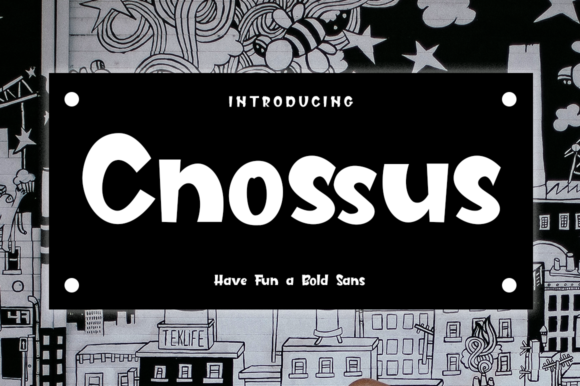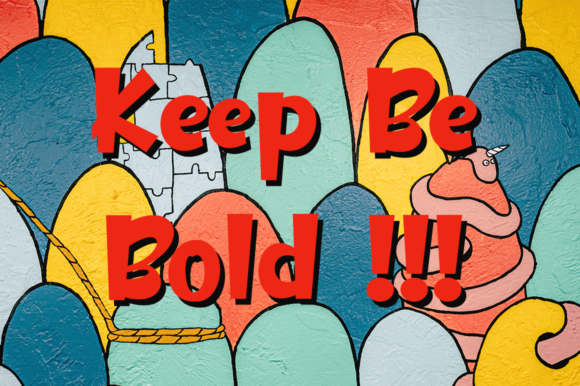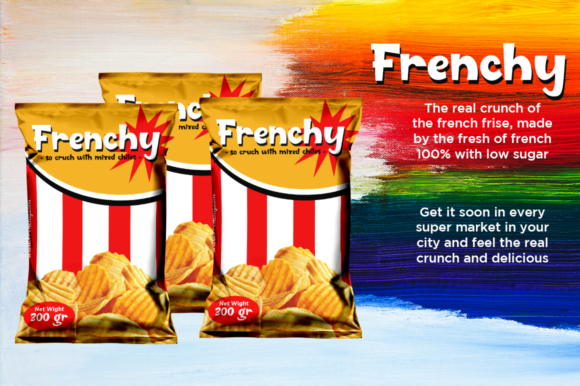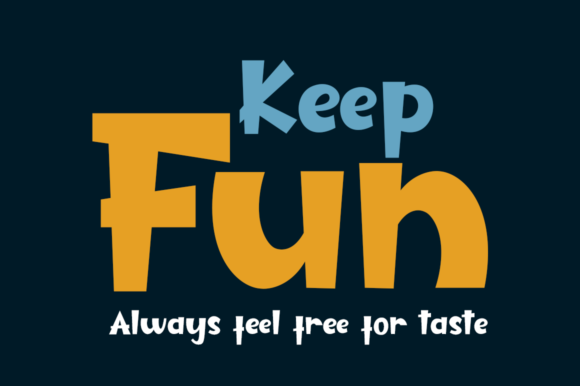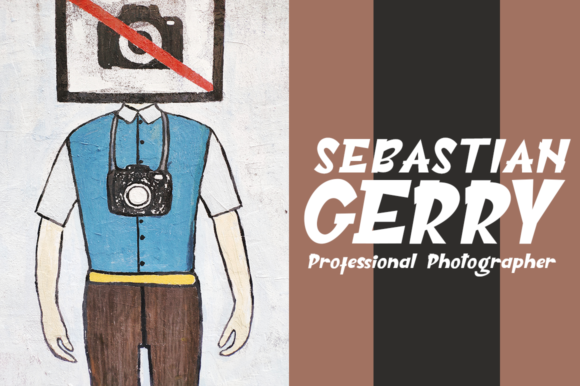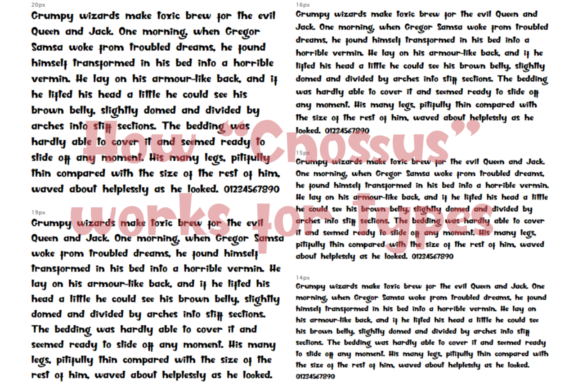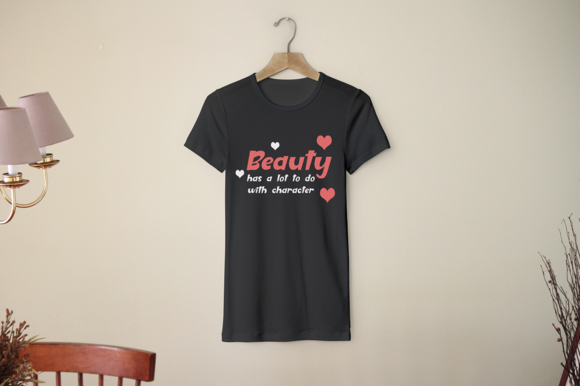
The Perfect Typography Surprise: Cnossus Font
There’s nothing quite like the thrill of discovering a new font that completely transforms a design project. It’s like stumbling upon a hidden treasure that takes your work from good to great. For designers, the quest for the perfect font can be an endless one, but sometimes, it’s the unexpected finds that end up being the most memorable. And that’s exactly what happens when you come across the quirky and charming Cnossus Font.
This sweet and simple comic font is designed to add a touch of whimsy to any design project. With its unusual style, it’s perfect for creating eye-catching graphics, posters, and even social media content. Whether you’re working on a children’s book, a video game, or a quirky advertisement, Cnossus Font is sure to bring a smile to your face and set your designs apart from the rest.
Cnossus Font Key Features
- Font Family: Cnossus Font is a sans-serif font family designed for digital use, including screens and print materials.
- Unique Characteristics: The font features a clean, modern design with a subtle x-height and open counters, making it highly legible and suitable for body text, headings, and titles.
- Language Support: Cnossus Font supports a wide range of languages, including Latin, Greek, Cyrillic, and many non-Latin scripts, making it a versatile choice for global projects.
Cnossus Font Review
Overall, I was really excited to dive into the Cnossus font, and I’m happy to share my honest thoughts.
- The Cnossus font has a unique and eye-catching aesthetic, making it perfect for designers looking to add some flair to their projects.
- The font is highly customizable, with a wide range of weights and styles to choose from, giving designers the flexibility to experiment with different looks.
- The Cnossus font is highly legible, making it suitable for body text, headings, and even signage.
- The font may be too bold or overpowering for certain applications, such as delicate branding or fine typography.
- The Cnossus font may not be suitable for readers with visual impairments due to its unconventional letterforms.
Overall, I would say that the Cnossus font is a great addition to any designer’s toolkit, but it’s essential to use it thoughtfully and consider the context in which it will be used. With the right project, the Cnossus font can truly shine and add a unique touch to your design.
Cnossus Font Practical Application Guide
Cnossus Font is commonly used in modern branding, logo design, and typography projects. It’s also ideal for creating elegant headings, titles, and subtitles. Additionally, Cnossus Font can be used to add a touch of sophistication to business cards, resumes, and other professional documents.
Tips for Getting the Most Out of Cnossus Font
To get the most out of Cnossus Font, experiment with different font sizes, colors, and styles to create a unique look. You can also pair Cnossus Font with other fonts to create a visually appealing contrast. Remember to use Cnossus Font in moderation, as it can be quite striking on its own.
Alternatives to Cnossus Font
Playfair Display is an elegant, high-end serif font ideal for luxury branding, invitations, and other high-end materials. It features intricate details and ornate flourishes, making it perfect for creating a sense of sophistication and refinement.
Comparison to Cnossus Font: While Cnossus Font is also a serif font, Playfair Display is more ornate and luxurious, making it a better choice for high-end materials. Cnossus Font is more versatile and can be used in a variety of contexts.